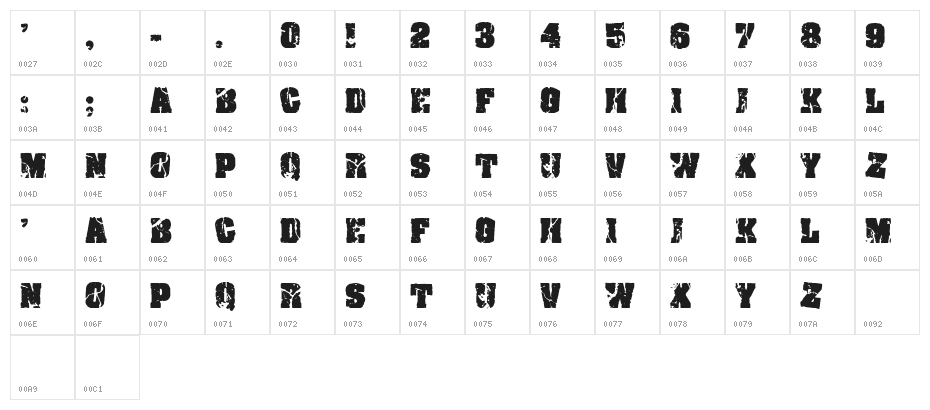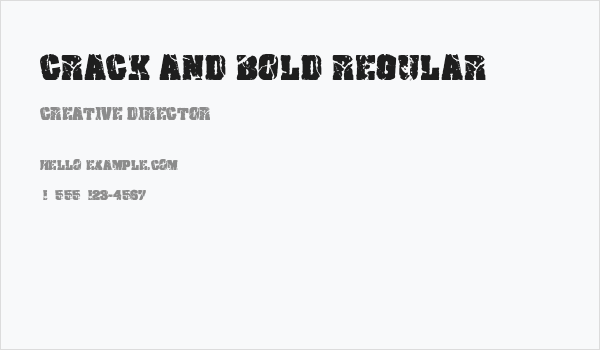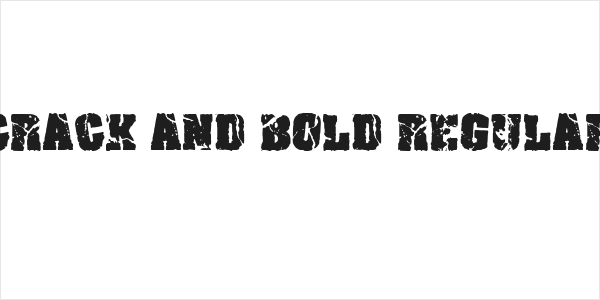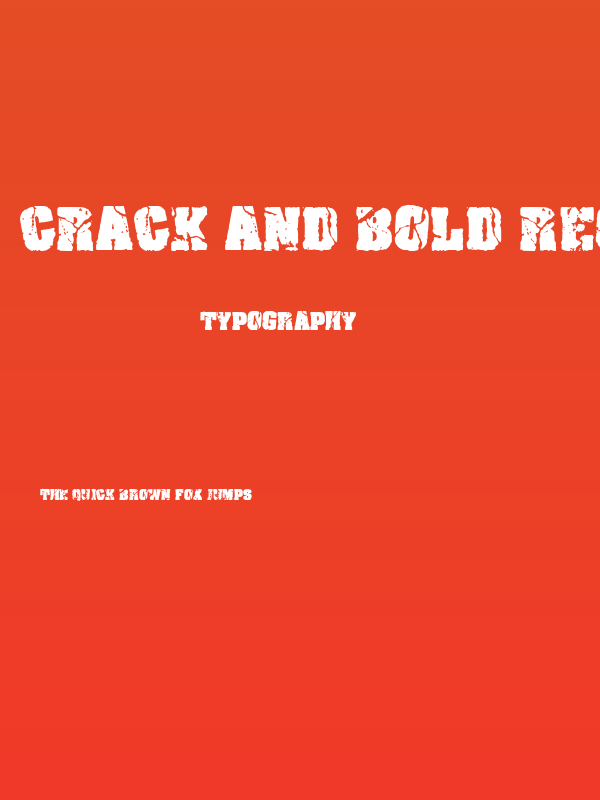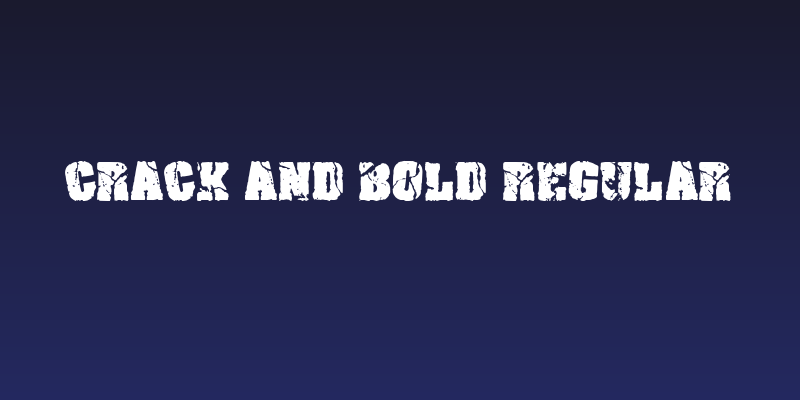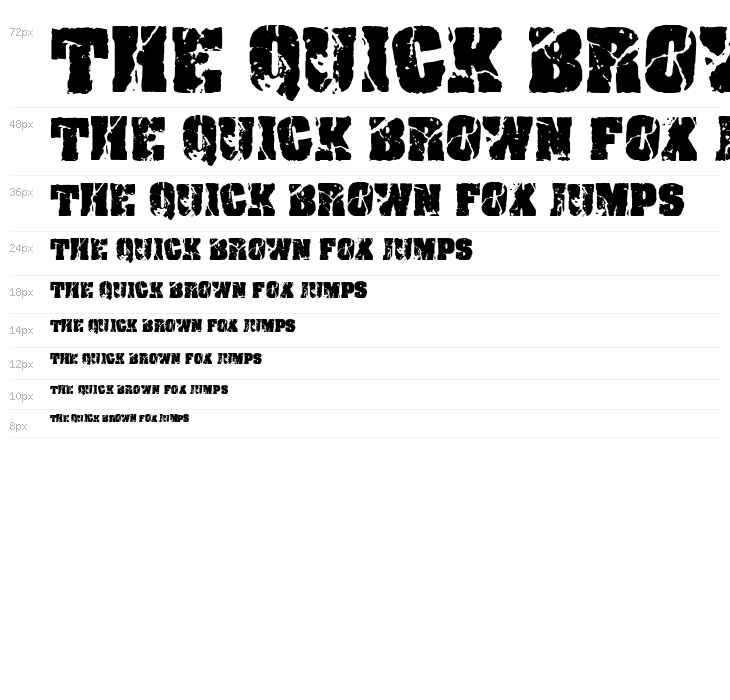
Crack and Bold Regular Font
Crack and Bold Regular Description
This font features a bold and distressed style, with a rugged, textured appearance that mimics the look of cracked or eroded surfaces. The characters are thick and heavy, with irregular edges that give a sense of wear and tear. This design choice adds a gritty, urban feel, making it ideal for projects that require a strong, impactful visual statement. The uppercase and lowercase letters maintain a consistent weight, while the numbers and special characters share the same distressed aesthetic, ensuring a cohesive look across all text elements.